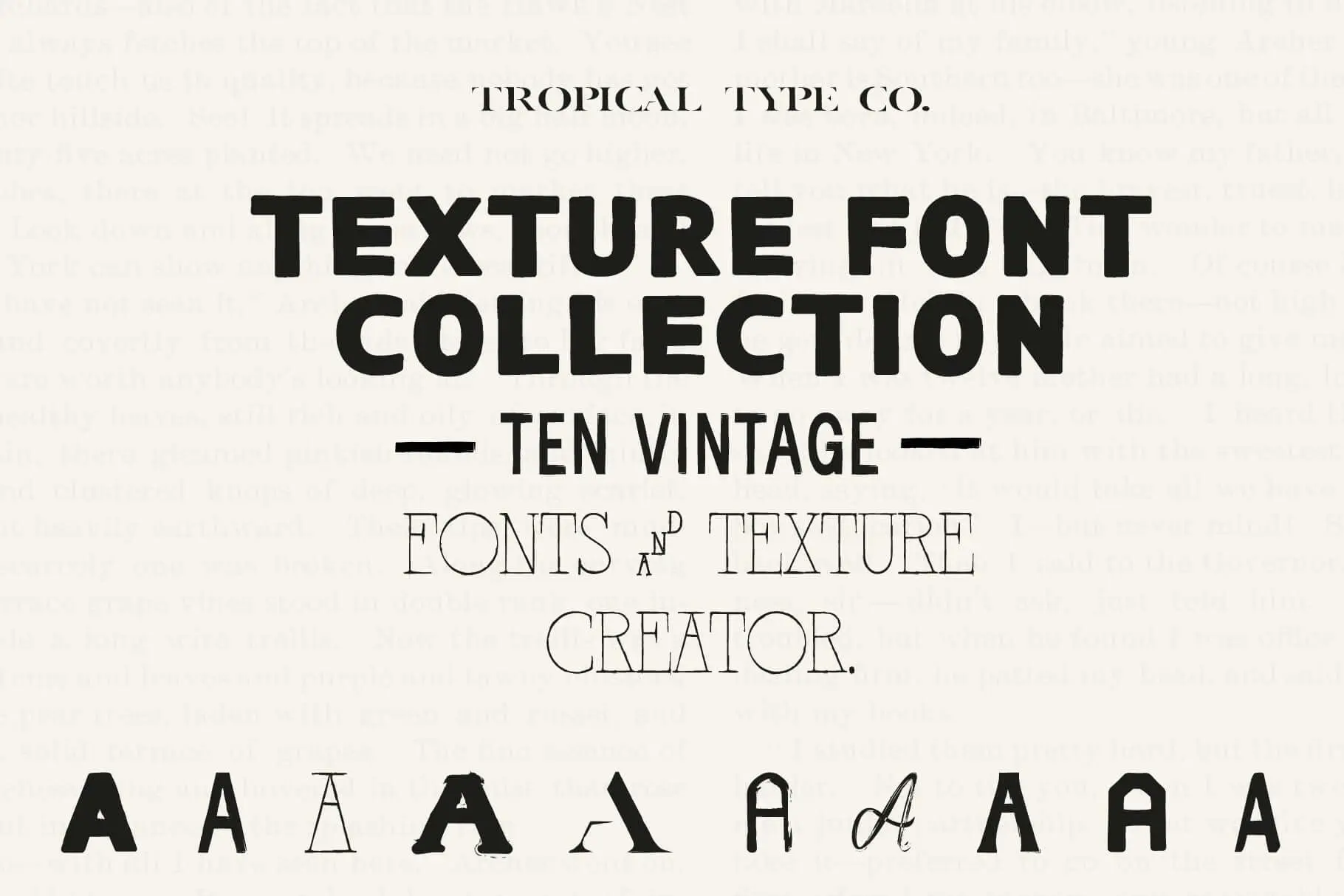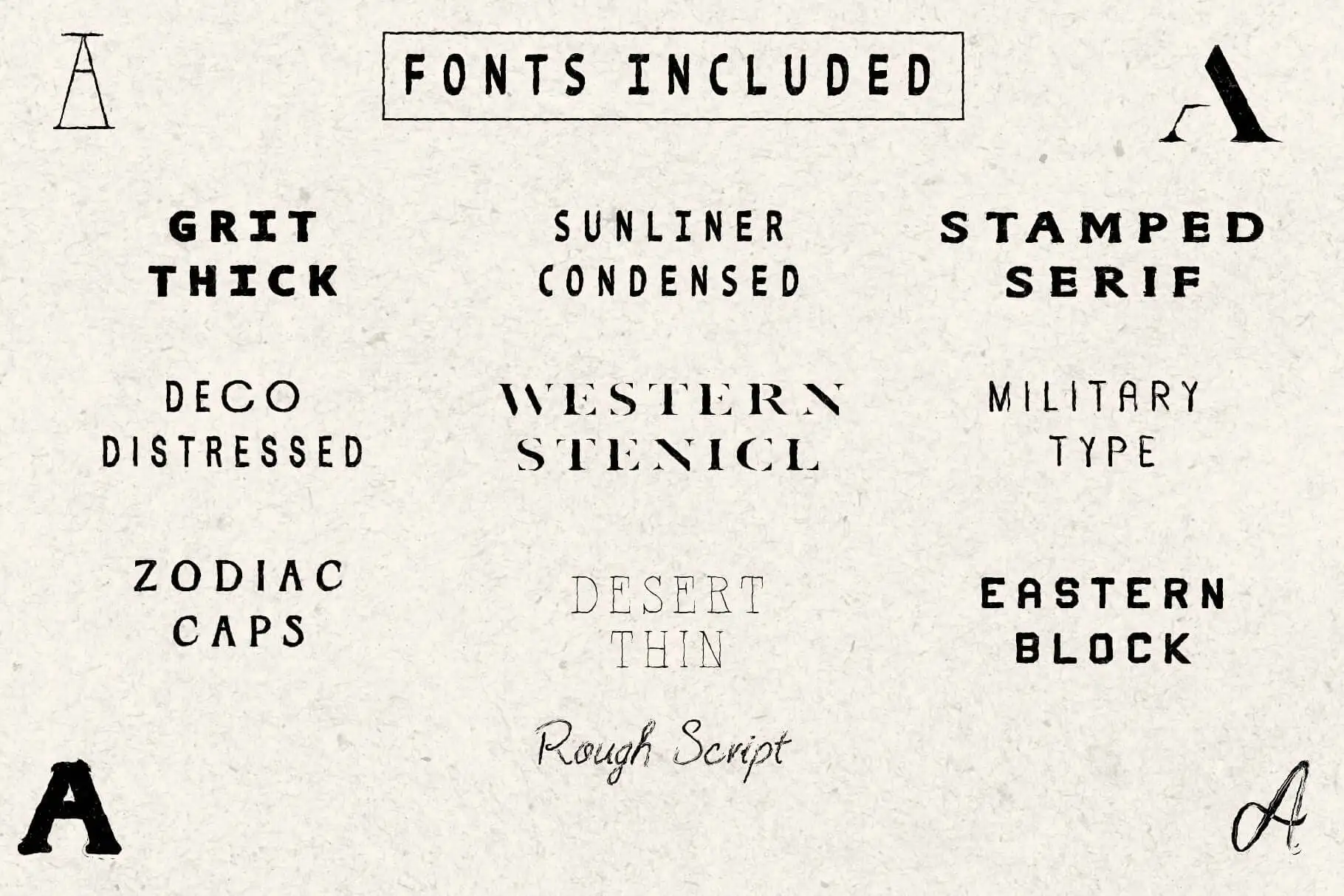
The Texture Font Collection is 10 textured fonts plus a texture creator PSD file to add extra texture to your designs. Perfect for those vintage typography logos and posters.Just drop your design into the PSD file and add extra grit in seconds. Adjust the settings to customize the effects.
Fonts included:
✦ Grit Thick
✦ Sunliner Condensed
✦ Stamped Serif
✦ Deco Distressed
✦ Western Stencil
✦ Military Type
✦ Zodiac Caps
✦ Desert Thin
✦ Easter Block
✦ Rough Script